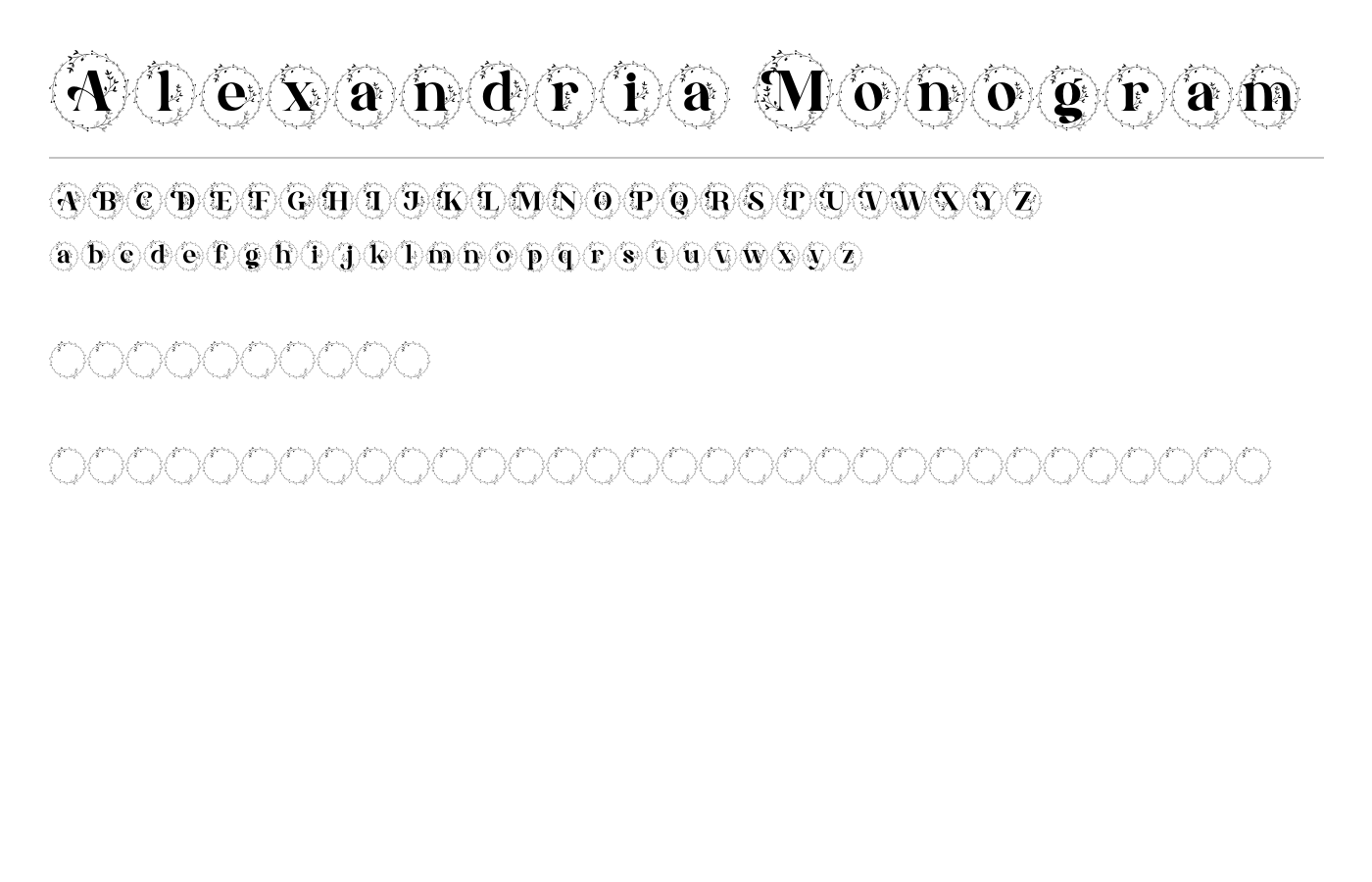
Alexandria Monogram is a decorative serif font featuring high contrast strokes and elegant bracketed serifs that evoke a refined, vintage charm. Its sophisticated letterforms are encircled by delicate floral wreaths, making it ideal for luxury branding, monograms, and elegant invitations where a classic and graceful aesthetic is desired. This font works best in headlines and logos, bringing a touch of timeless beauty and intricate detail to any design.
Alexandria Monogram Font
About Alexandria Monogram Font
| Font family | Alexandria Monogram Font |